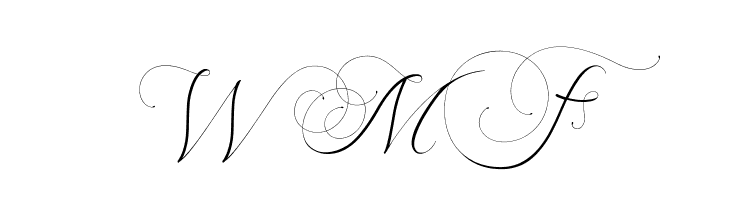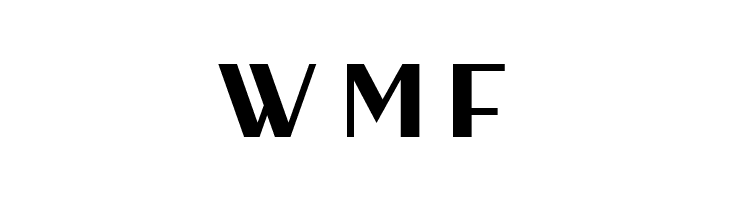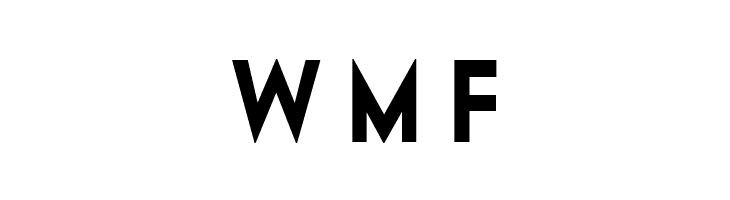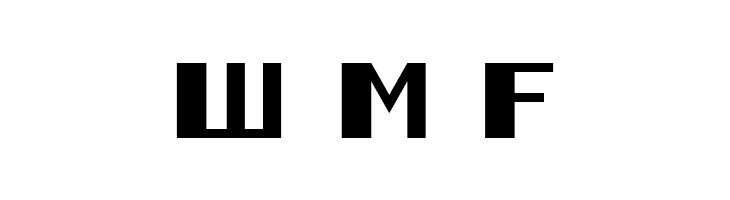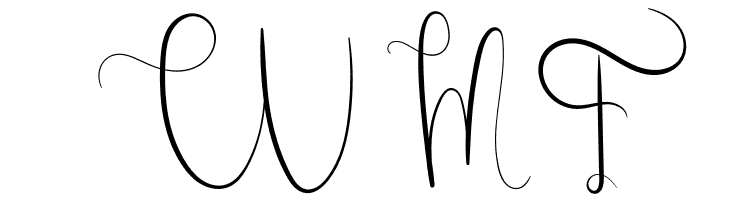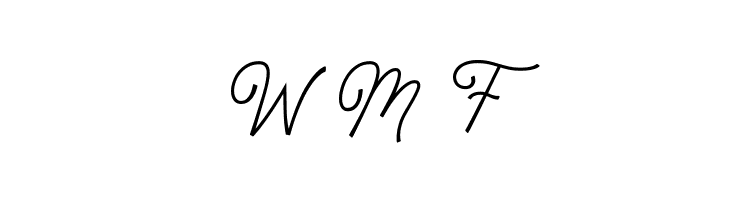
A graceful script font with flowing, cursive letters and consistent stroke width.
An elegant script font with intricate flourishes and a refined, flowing style.
A bold, modern sans-serif font with geometric lines and strong visual impact.
A bold, italicized font with a dynamic and modern style.
A bold, geometric font with industrial and decorative elements.
An elegant and flowing script font with intricate letterforms and graceful loops.
An elegant and flowing script font with classic cursive letterforms.
A graceful script font with flowing, connected strokes and elegant curves.